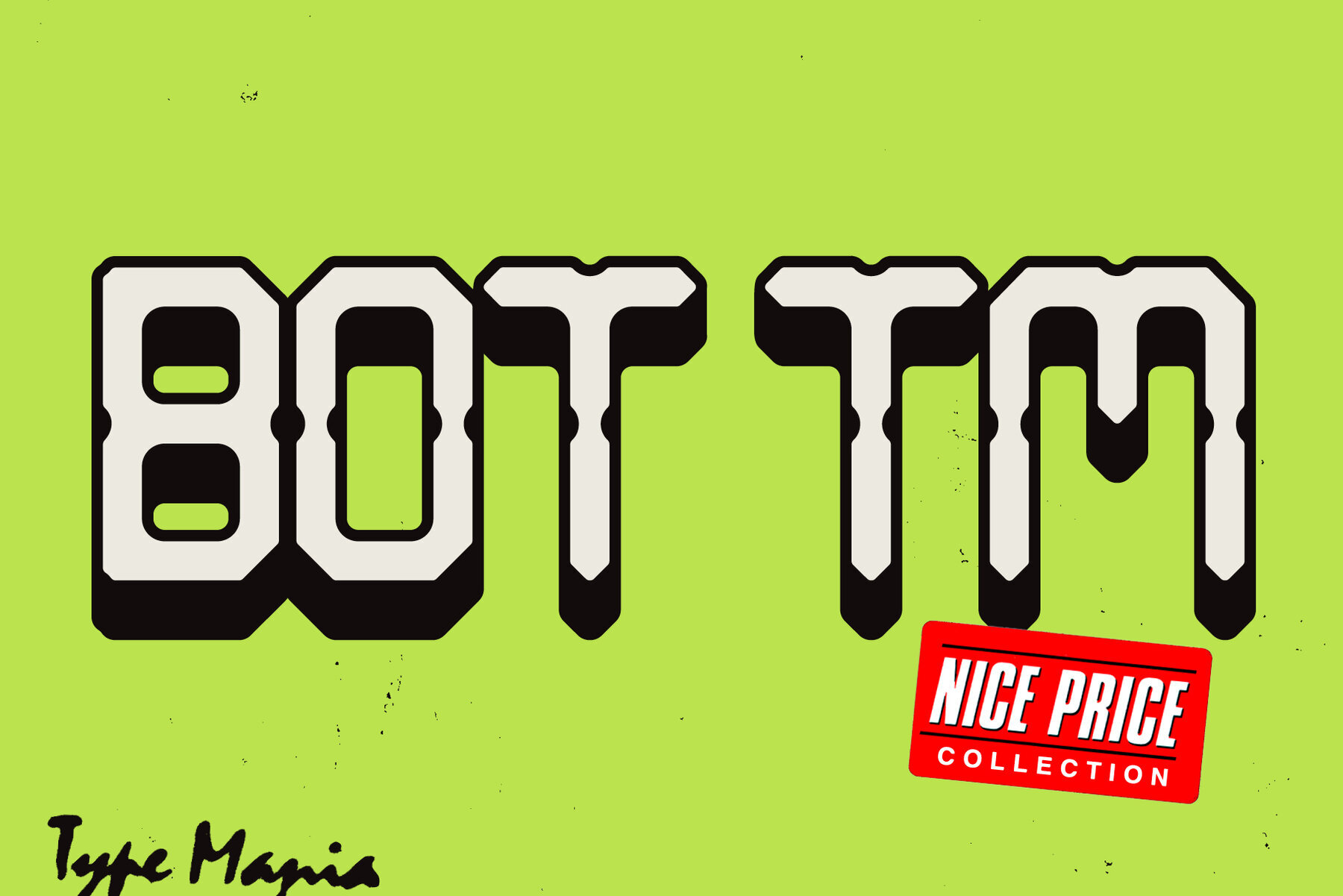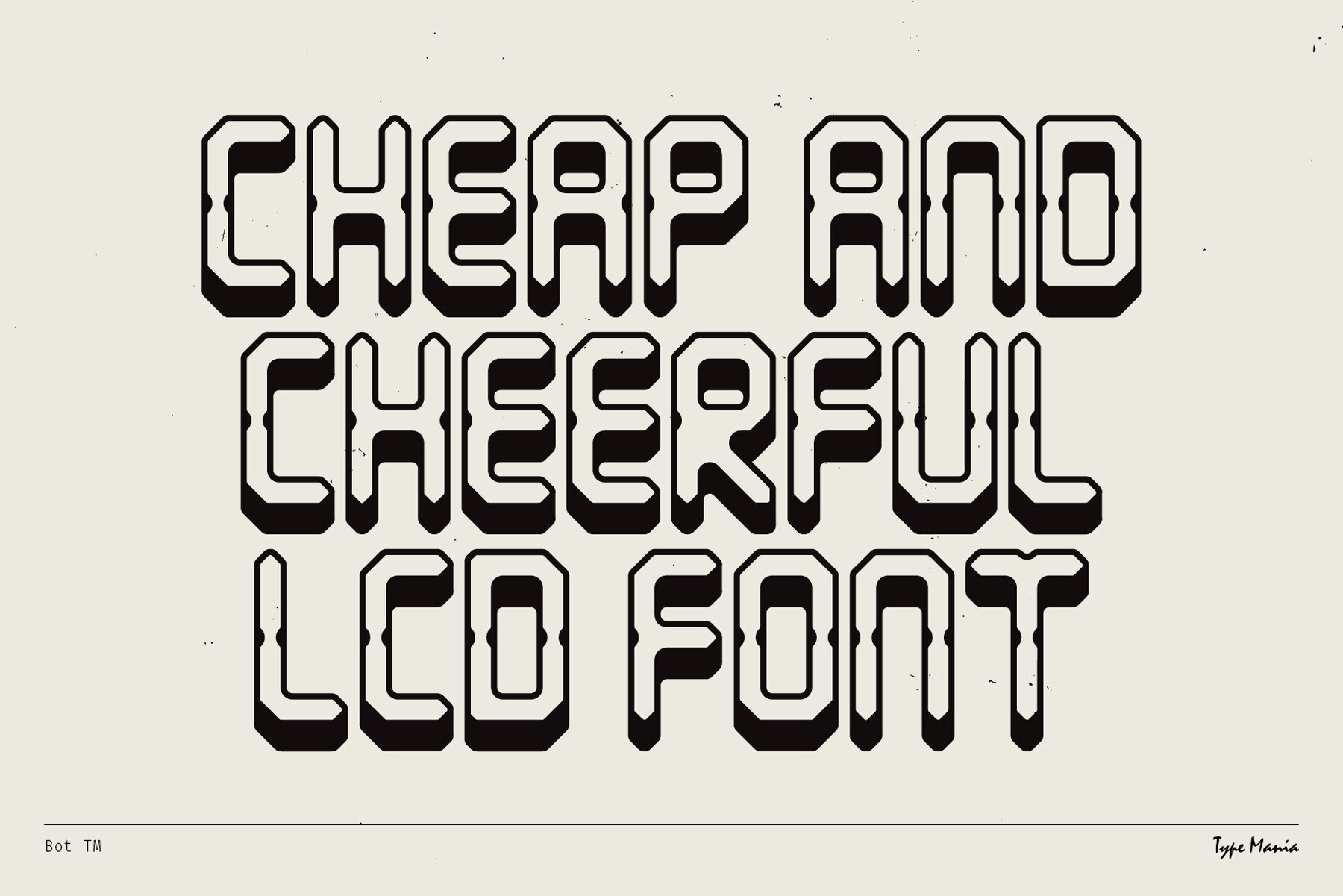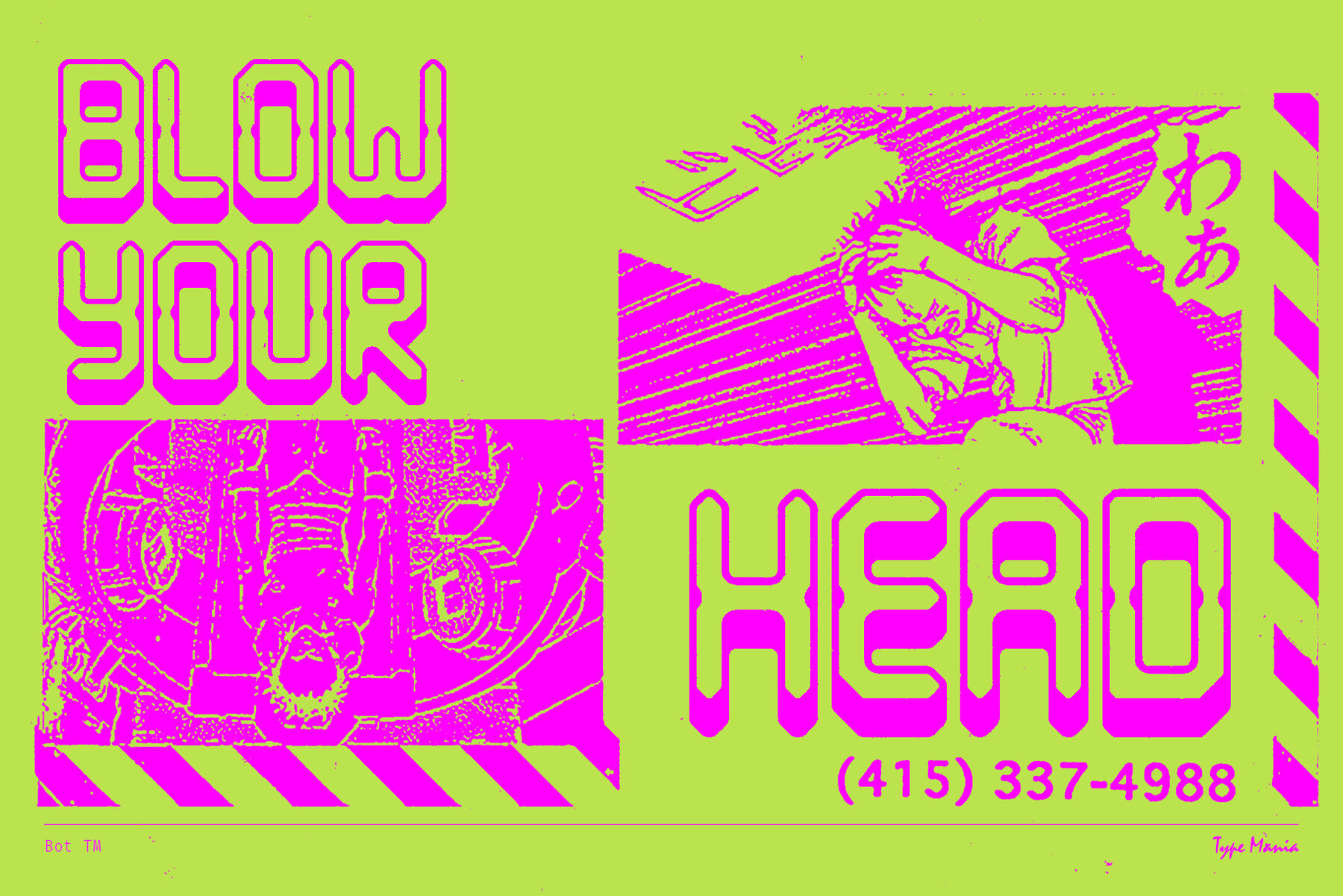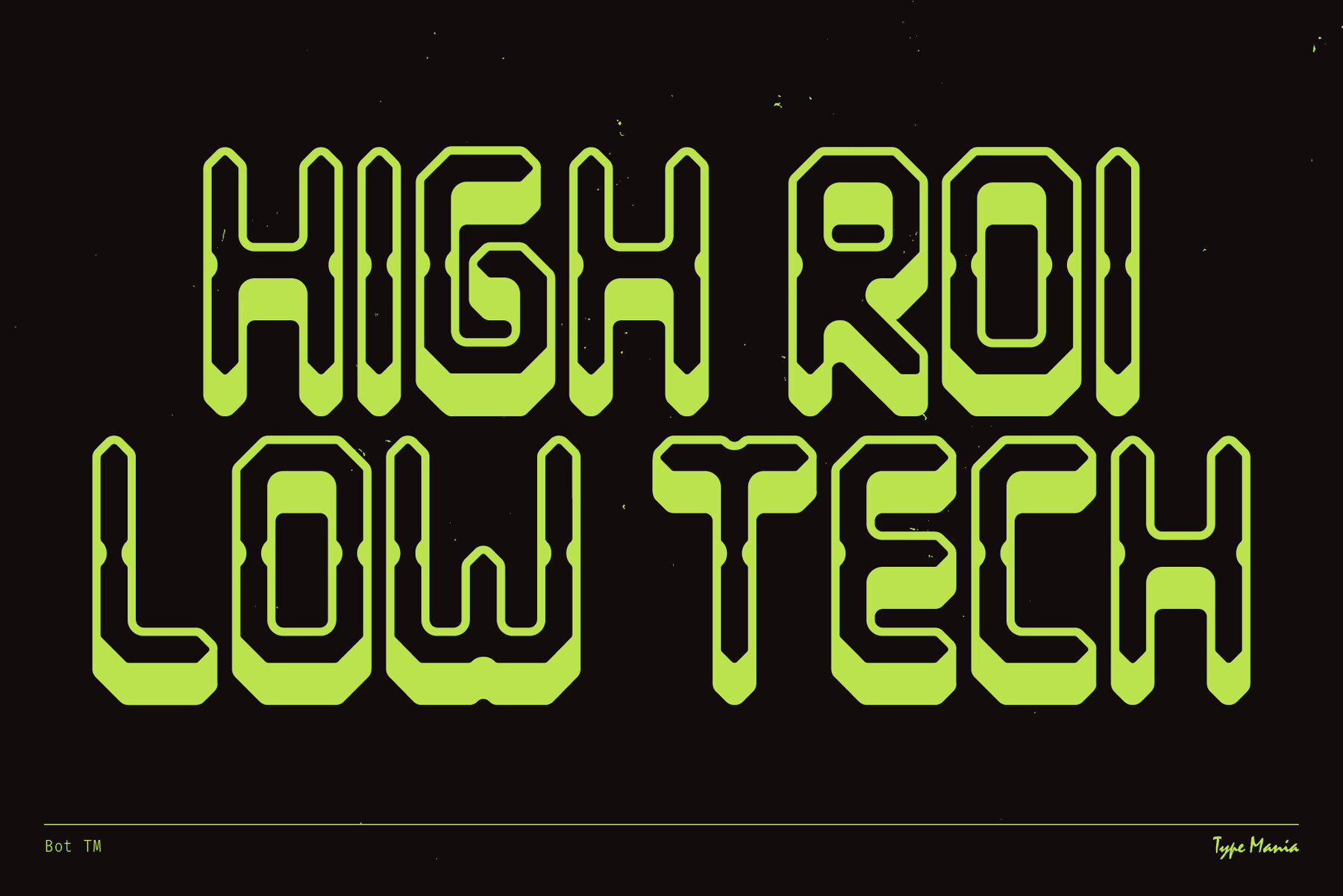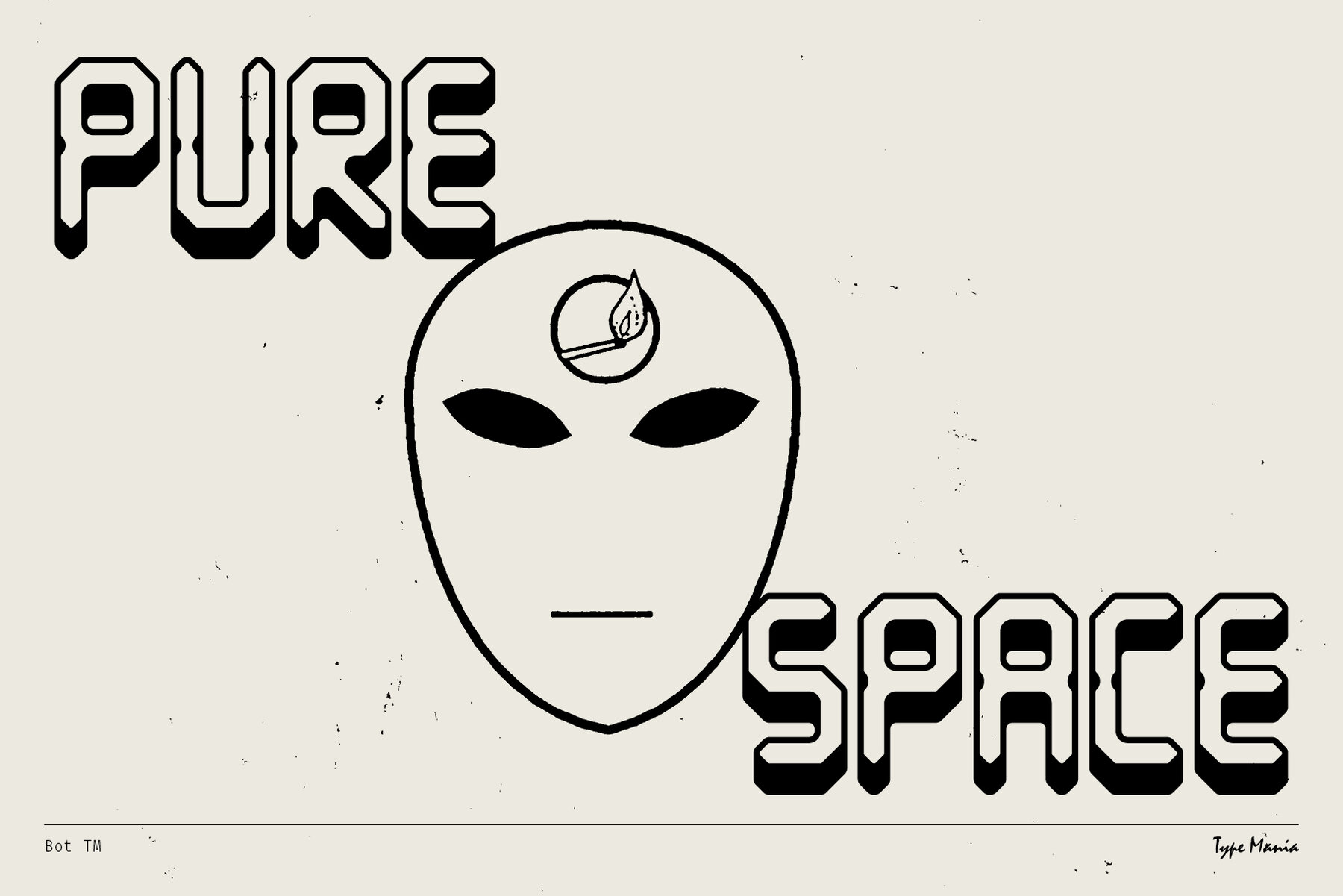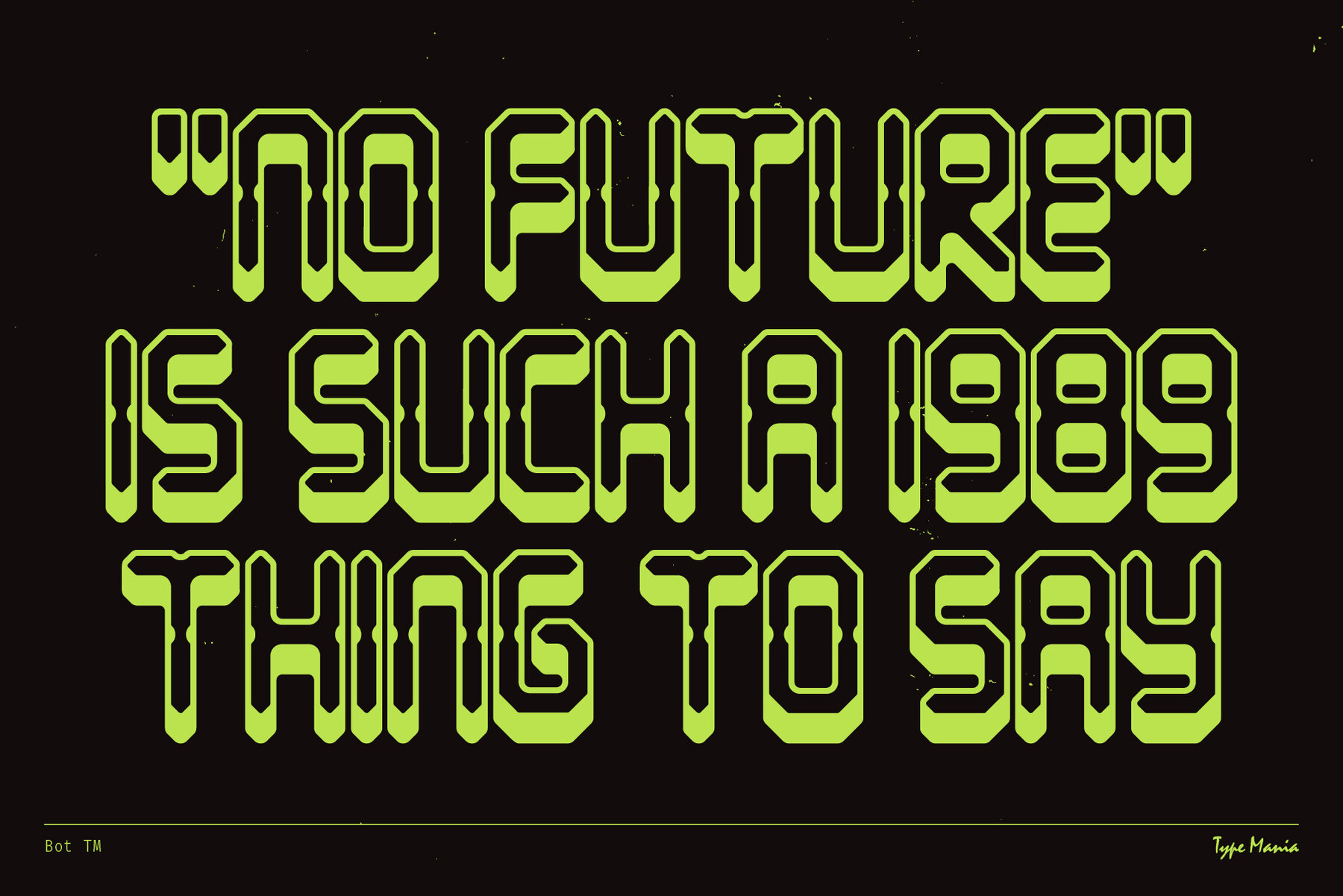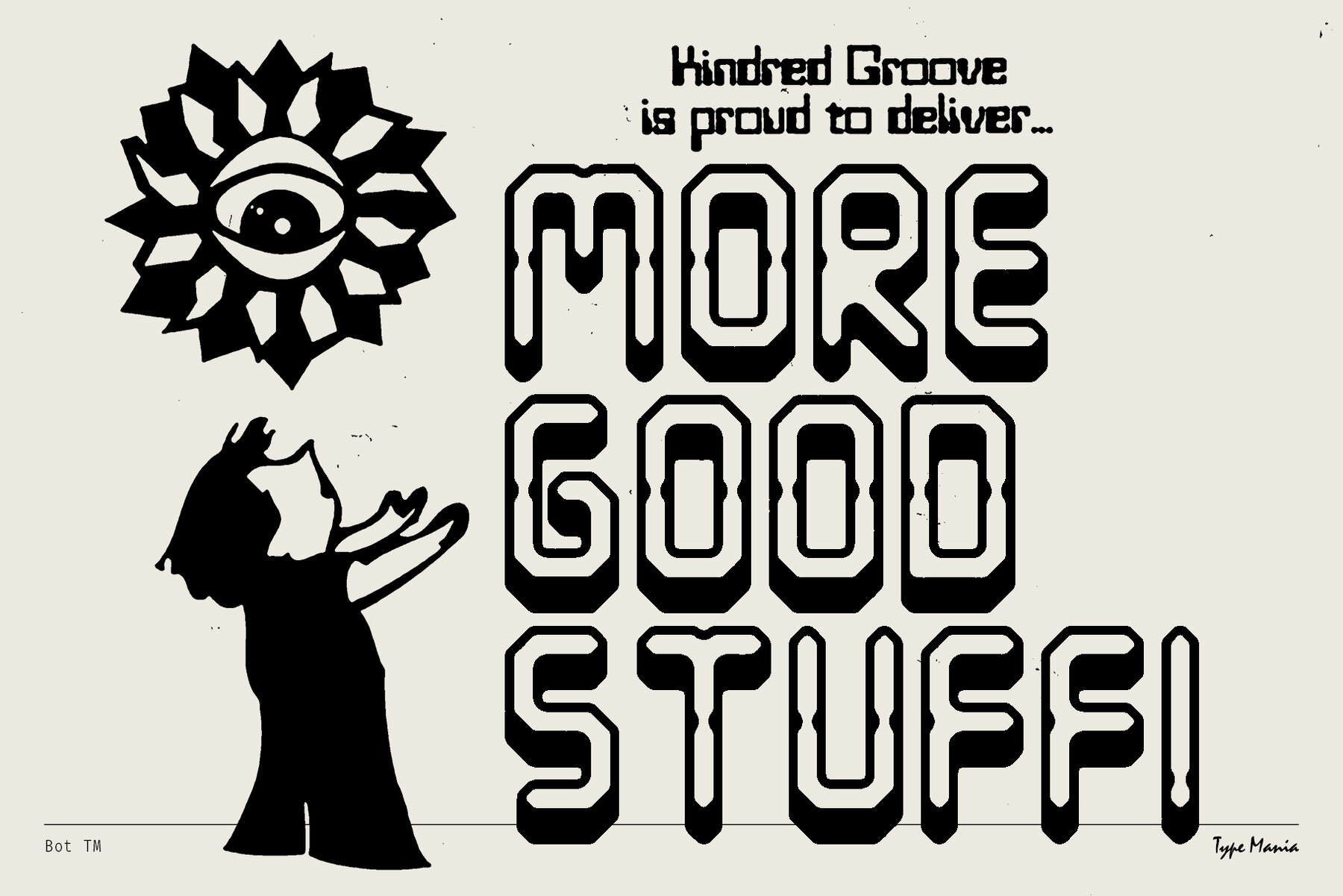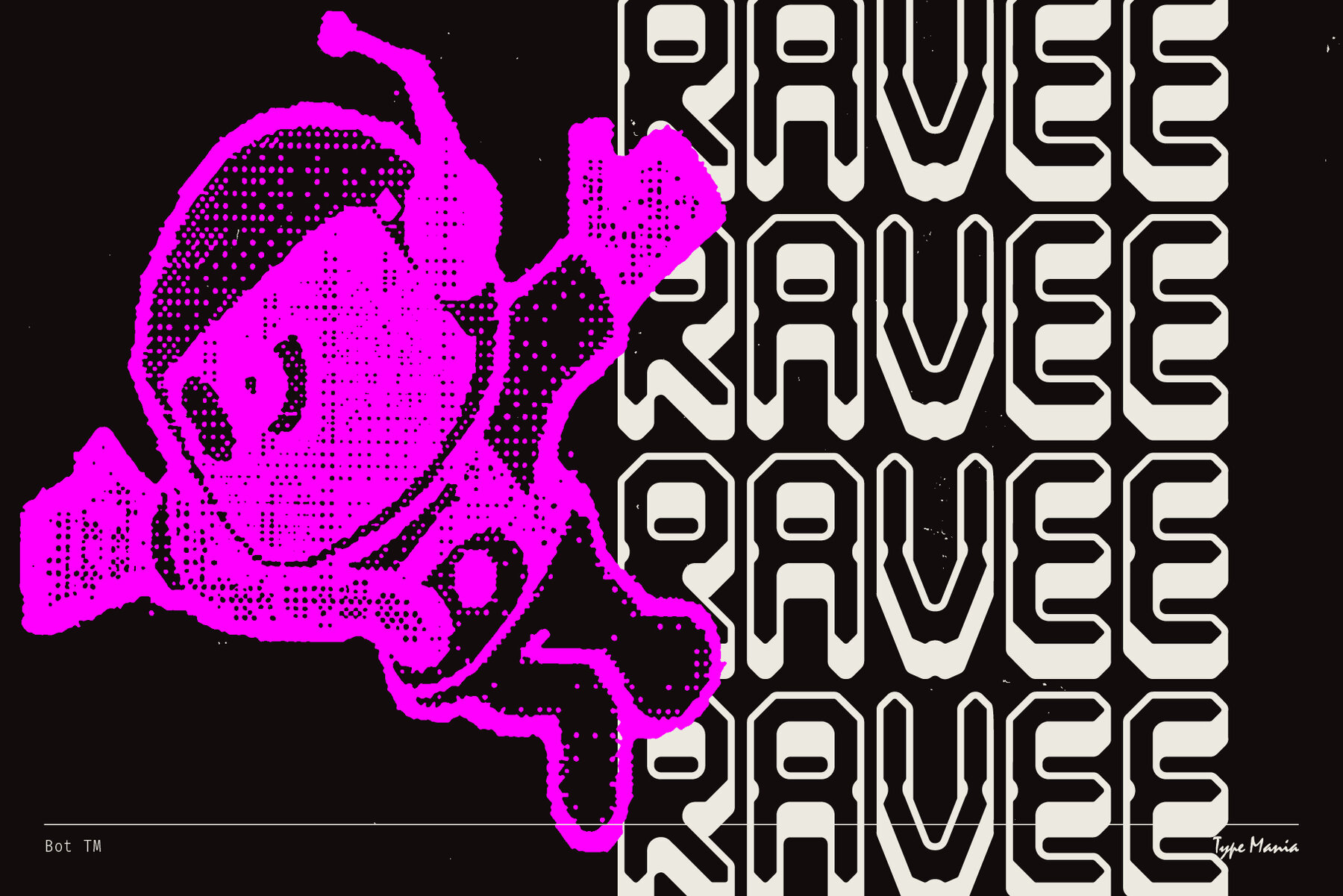
Bot TM Font
Bot TM Regular
Bot TM captivates with its unique blend of early digital aesthetics and modular precision, making it an ideal choice for design projects that aim to evoke a vintage yet modern feel. This font is characterized by its structured, machine-made appearance, offering a nod to the past while fitting seamlessly into contemporary creative endeavors.The Raw Charm of Bot TM for Modern Design